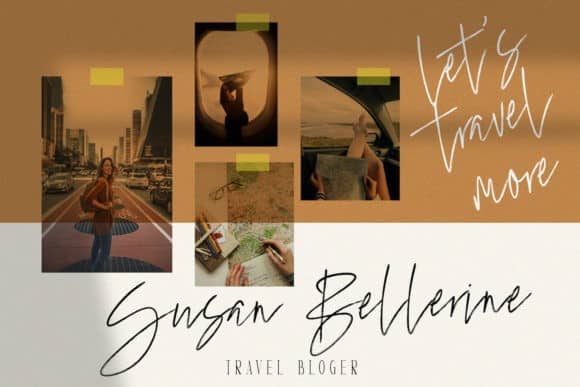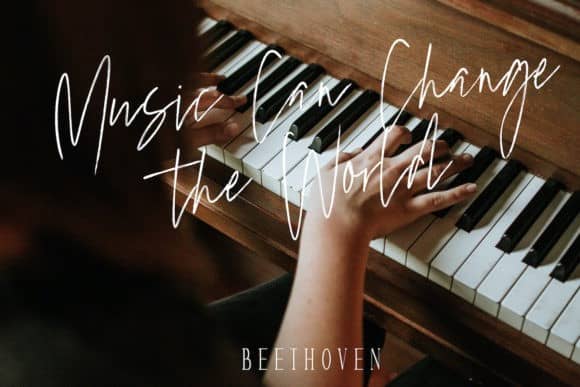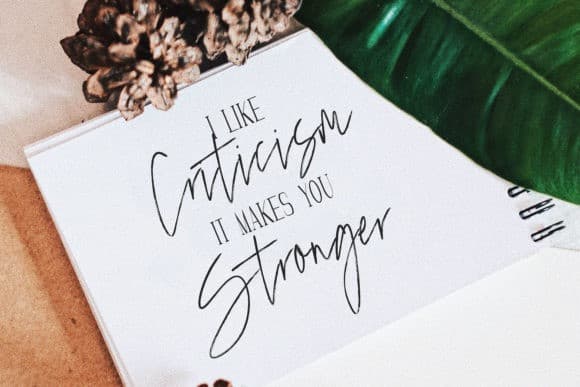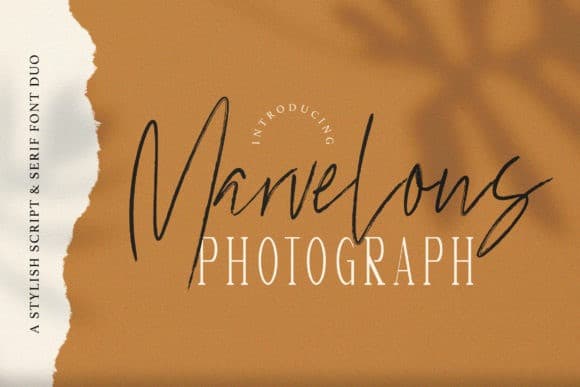
Marvelous Photograph Script Font Duo
Marvelous Photograph Script Font is a set of two modern fonts: serif and stylish script. Made from font designer named StringLabs. It’s a spectacular duo font (serif and script). Incredibly versatile, this font fits a wide pool of designs, elevating them to the highest levels. Add this font to your favorite creative ideas and notice how it makes them come alive! They blend together so well, that you can create logos, social media posts, invites and many other projects.